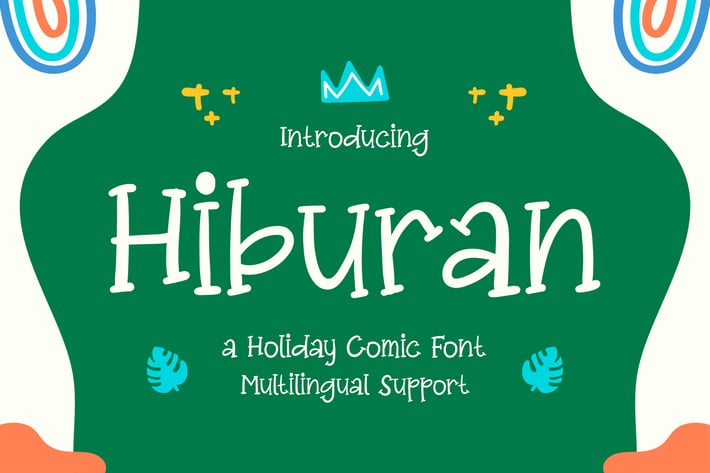
Hiburan - A Holiday Comic Font
Introducing "Hiburan" - a holiday comic font that brings joy and cheer to your seasonal designs, infusing them with festive charm and playful whimsy.
With its lively characters and vibrant personality, "Hiburan" captures the spirit of holiday celebrations with a touch of humor and nostalgia. Whether you're creating greeting cards, party invitations, festive posters, or social media graphics, this font adds a sense of fun and lightheartedness to your projects.
Embrace the holiday vibes of "Hiburan" as it effortlessly enhances your designs. With its comic-inspired style and festive flair, this font spreads joy and laughter wherever it's used, ensuring that your holiday creations stand out with colorful charm.
Step into the festive spirit with "Hiburan" and let your designs shine with its cheerful and whimsical charm.
– Lowercase
– Ligature
– Alternate
– Multilingual Support